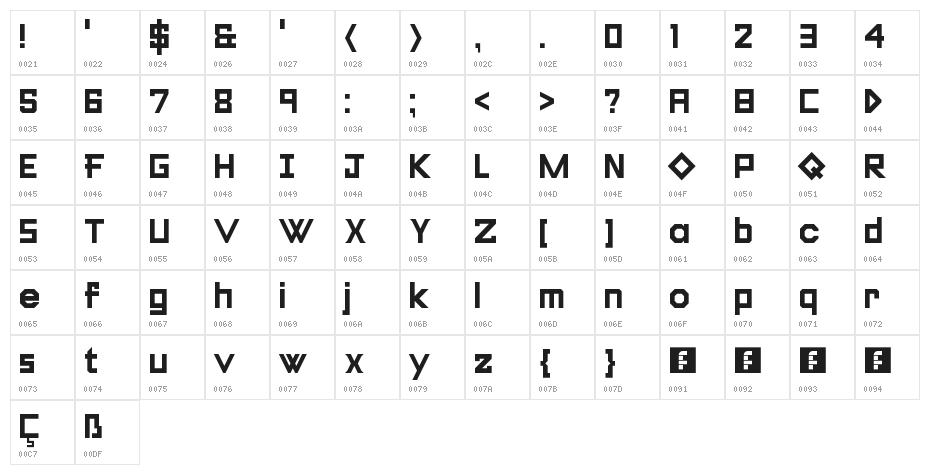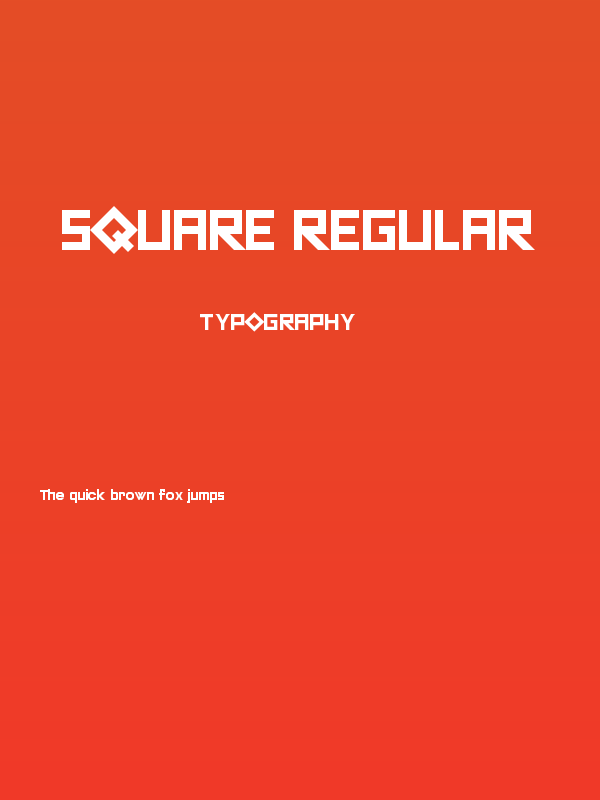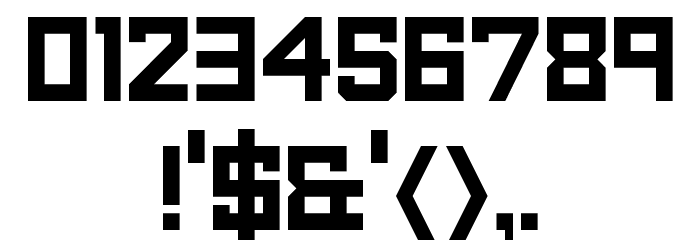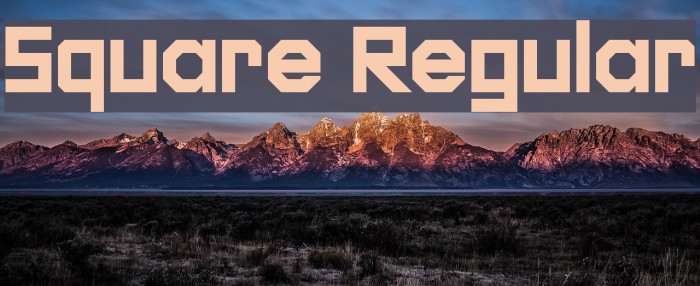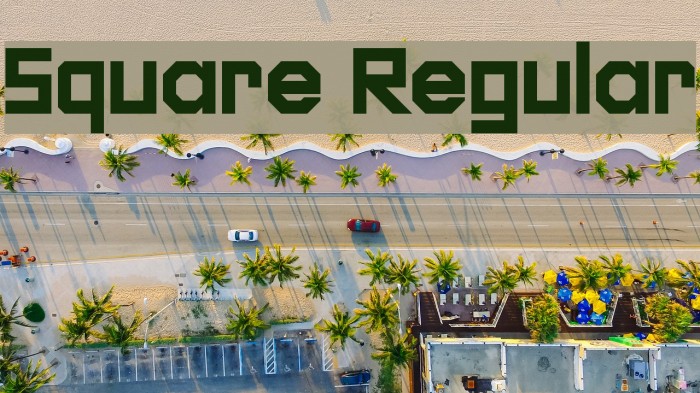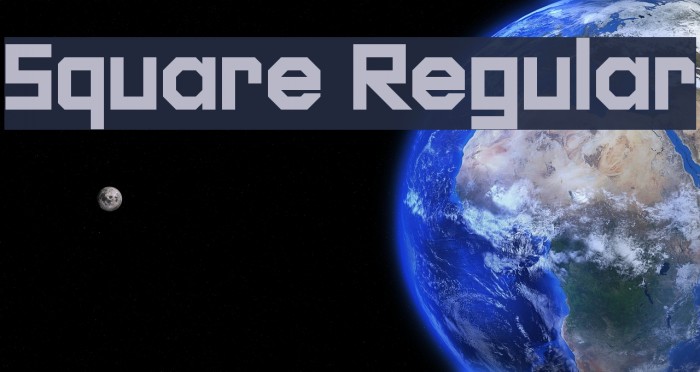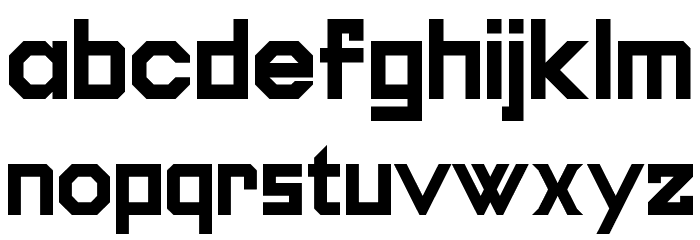
Square Regular Font
Square Regular Description
This font features a bold, geometric design with a distinctly modern and futuristic aesthetic. Each character is crafted with sharp, angular lines and a consistent thickness, creating a uniform and cohesive look. The uppercase letters are particularly striking, with a blocky, almost mechanical appearance that commands attention. The lowercase letters maintain this geometric style, offering a seamless transition between cases. Numbers and special characters are designed with the same precision, ensuring readability and stylistic consistency across all text. The overall effect is one of strength and clarity, making it ideal for projects that require a bold statement.
| Proposed Projects | Ideal for technology branding, video game titles, sci-fi book covers, and modern posters. |